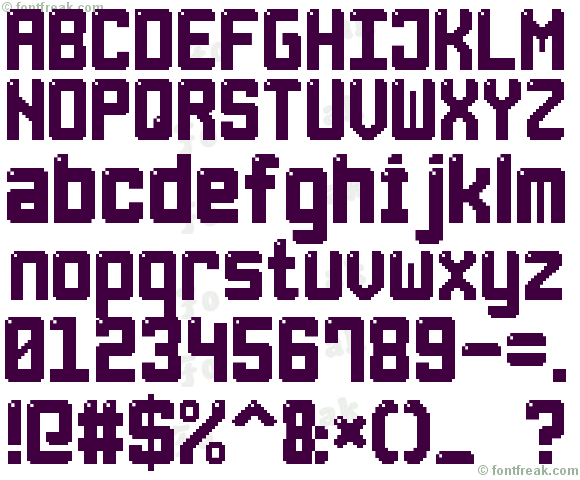
Light Pixel-7
About Light Pixel-7
Light Pixel-7 is a unique display font that embodies a playful, pixelated style, making it an ideal choice for projects that aim to capture a retro or digital aesthetic. This freeware font, designed by Style-7 and released in 2013, features a blocky, geometric appearance characterized by its consistent stroke weight and minimal contrast. The letters are evenly spaced, giving a clean and uniform look that enhances readability while maintaining a distinctive personality. The design incorporates subtle decorative elements, resembling classic pixel art, which adds charm and nostalgia to any text.
This font is perfect for a variety of use cases, including video game graphics, tech-related marketing materials, and retro-themed art pieces. Its distinctive style makes it an excellent choice for posters promoting gaming events or digital art exhibitions. Additionally, Light Pixel-7 can be effectively utilized in branding for tech startups, where a modern yet approachable logo is desired. Graphic designers will appreciate its versatility, as it can adapt well to both print and digital formats, making it suitable for web banners, social media graphics, and even merchandise.
Targeting graphic designers, small business owners, and content creators, Light Pixel-7 provides a unique option for those looking to stand out in a crowded marketplace. Its playful and nostalgic nature appeals to a wide range of audiences, from gamers to tech enthusiasts, ensuring that it resonates well in various contexts.
What truly sets the Light Pixel-7 font apart is its ability to evoke a sense of nostalgia while remaining relevant in contemporary design. This font allows creatives to explore new dimensions in their work, making it a valuable addition to any designer's toolkit. For those interested, a Light Pixel-7 font free download is readily available, inviting users to experiment with its unique charm in their projects.